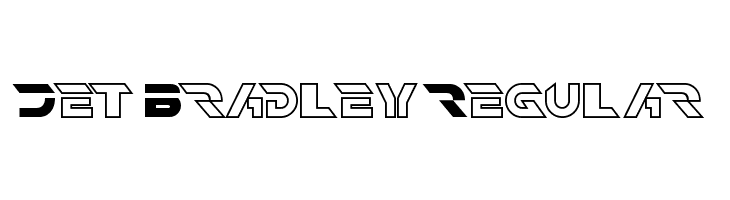
A decorative, fantasy-inspired font with sharp, angular strokes and an enigmatic style.
A bold, angular, and slanted decorative font with medium contrast.
A geometric and artistic font with sharp, angular letterforms.
A bold, geometric font with sharp, angular lines and high contrast.
A bold, geometric font with a futuristic and angular design.
A bold, geometric font with a futuristic and industrial style.
A bold, italicized font with a futuristic and angular design.
A bold, geometric, and modern uppercase font with high contrast.